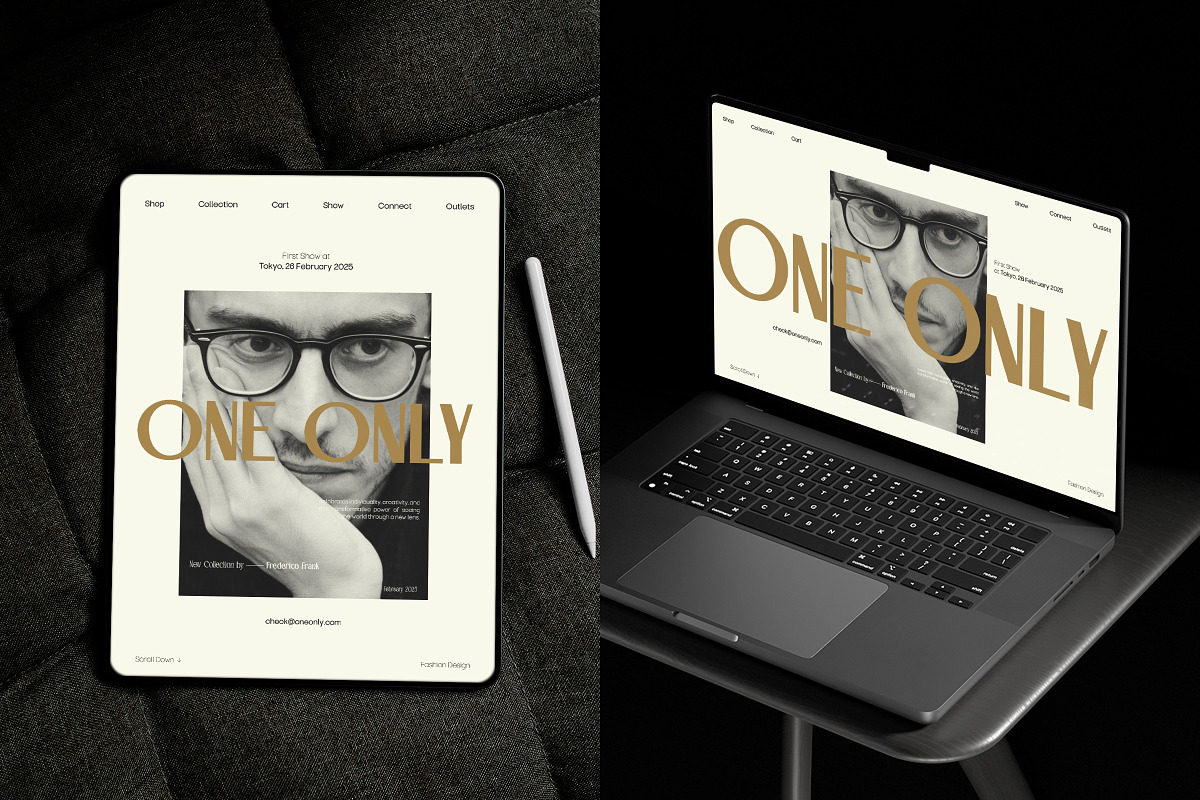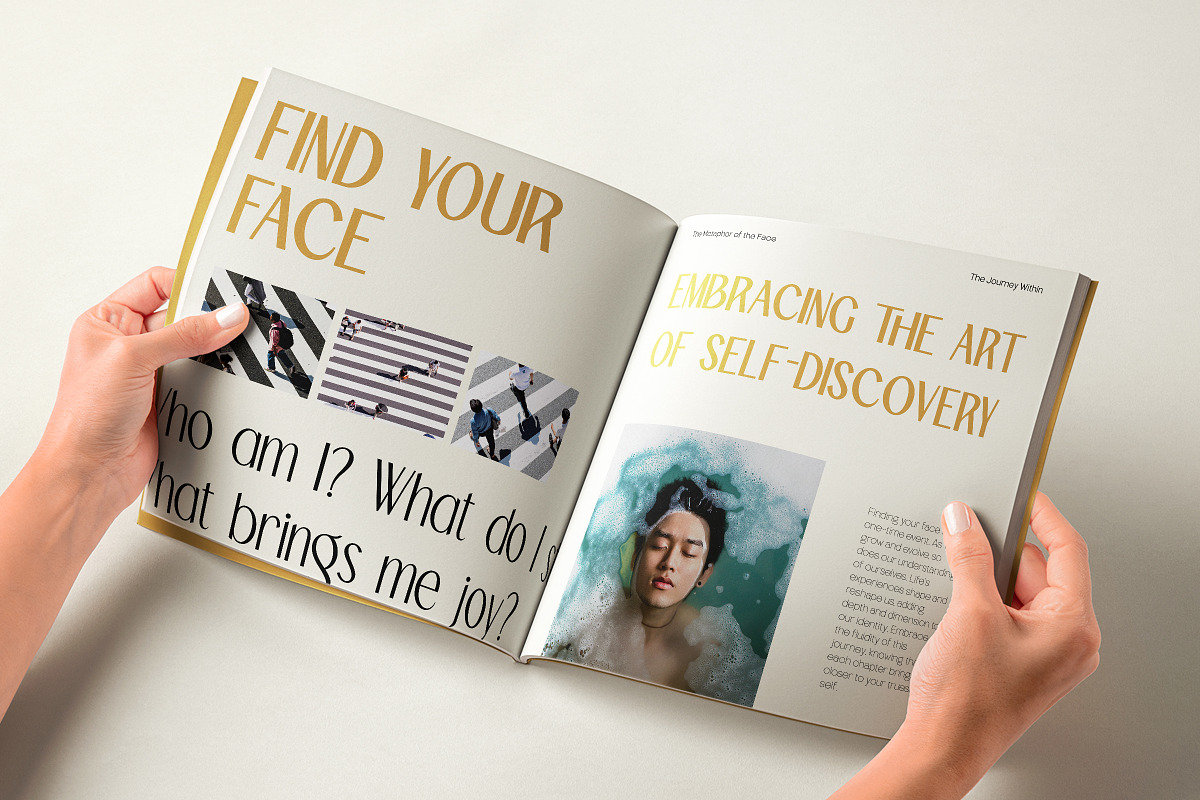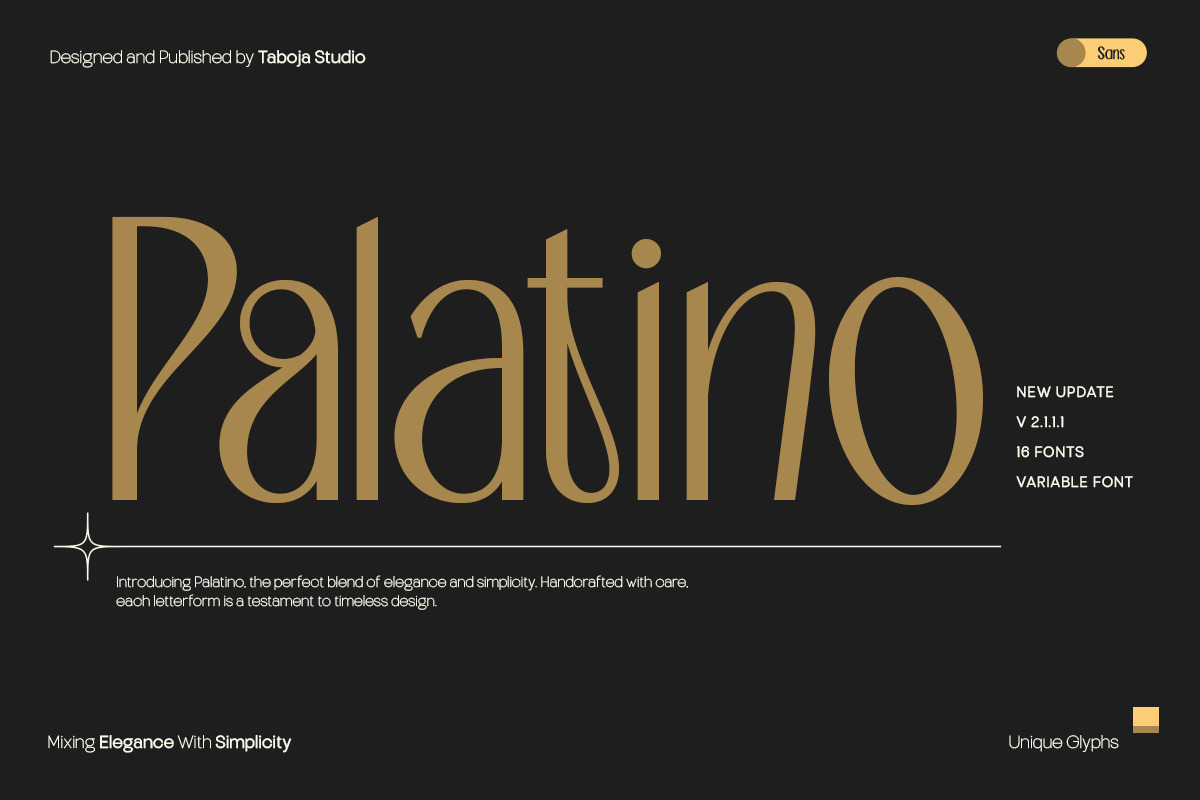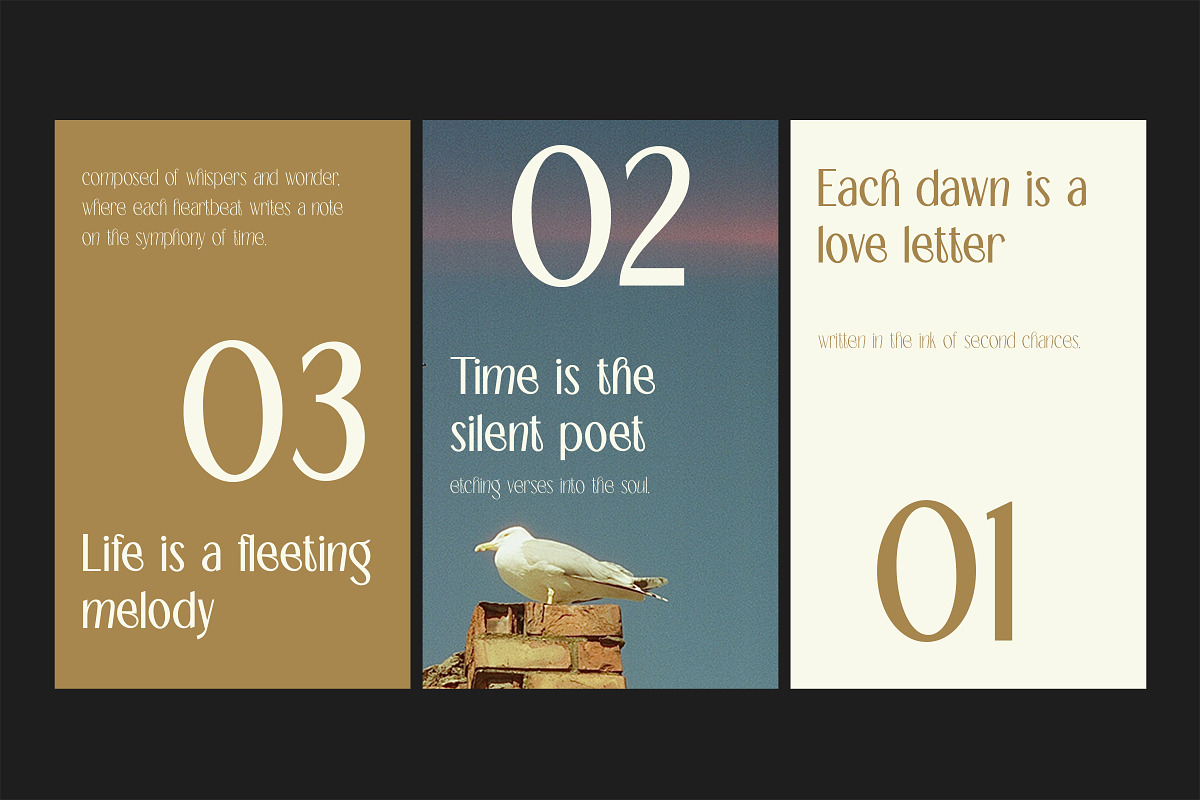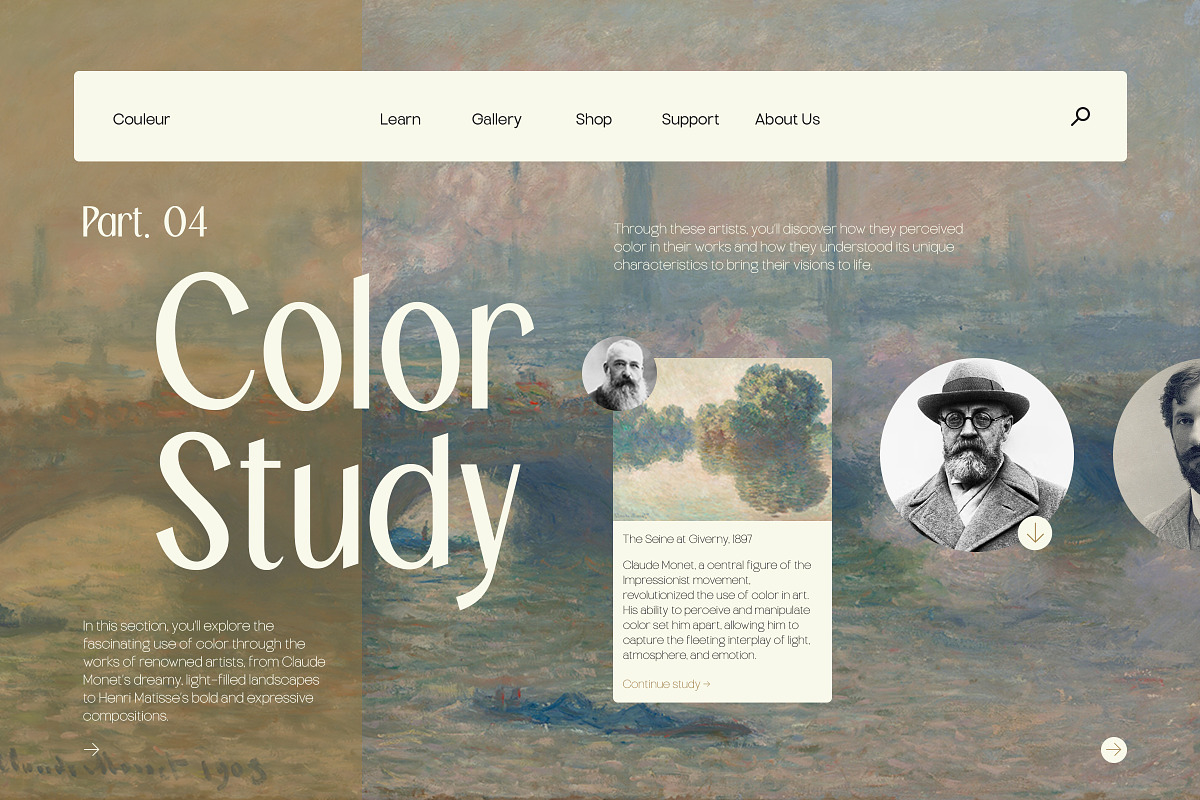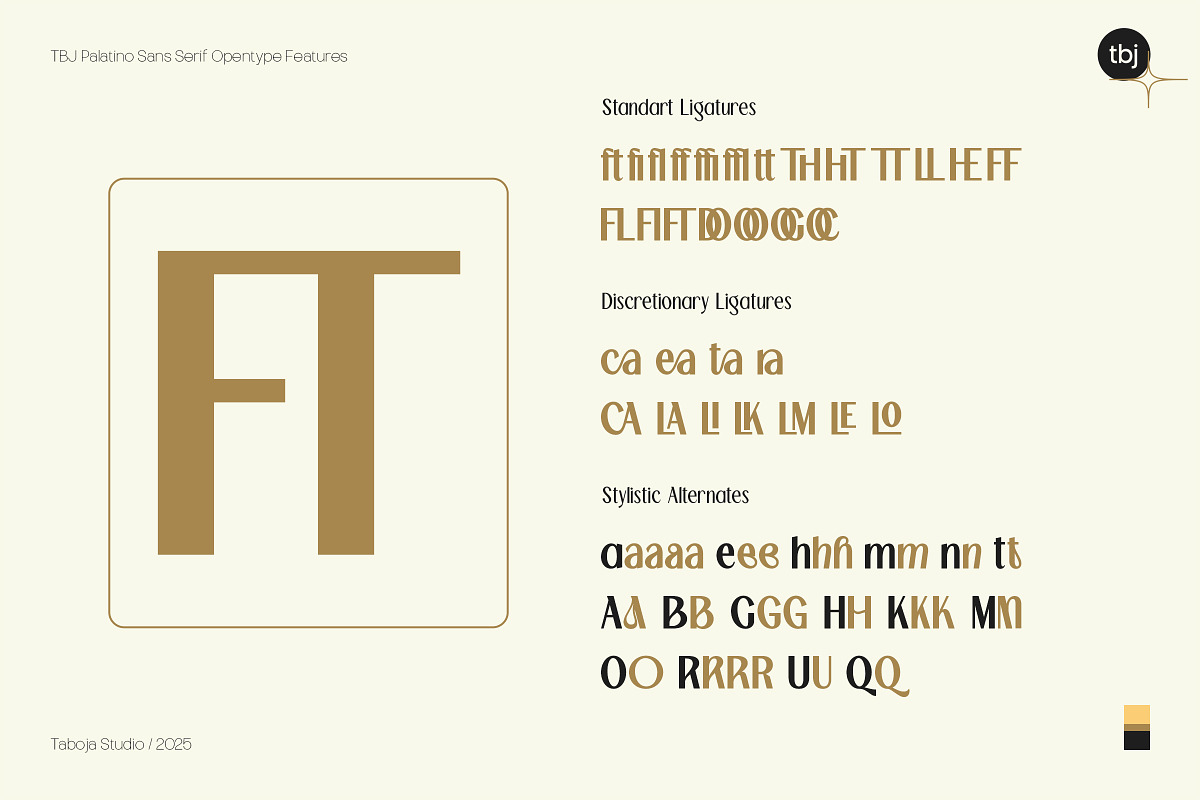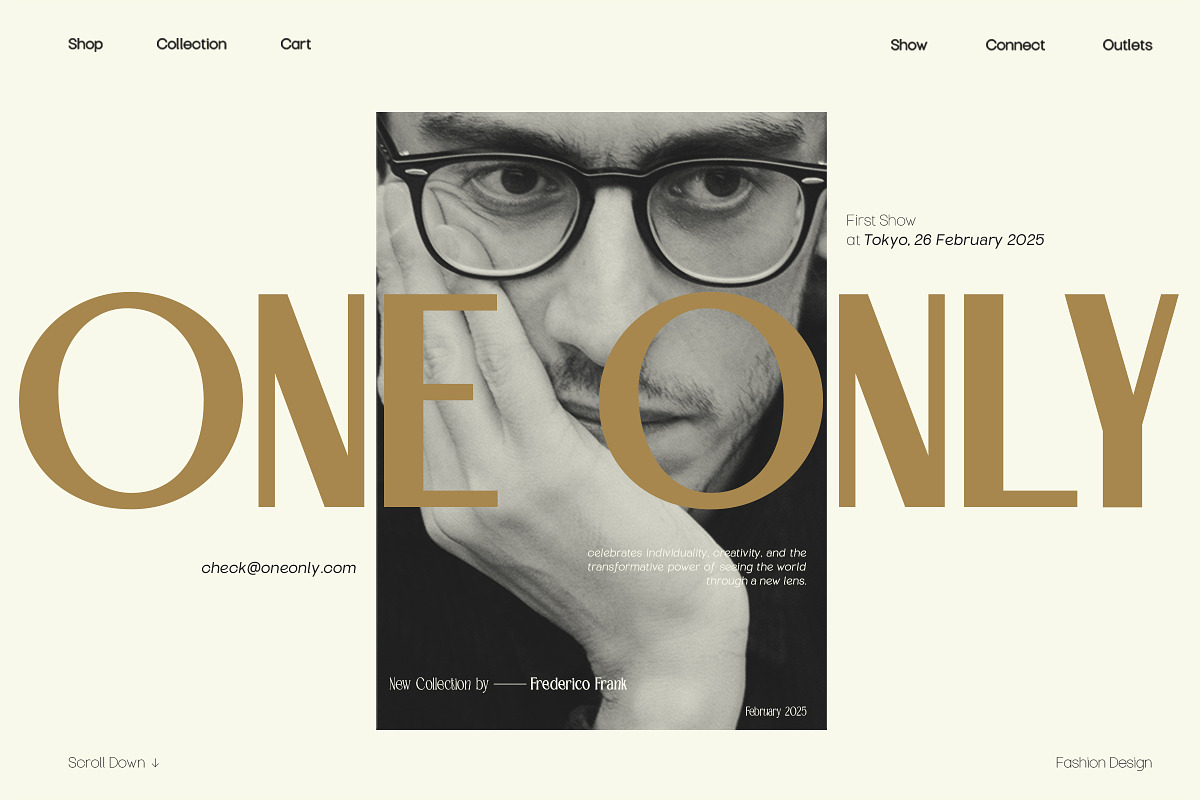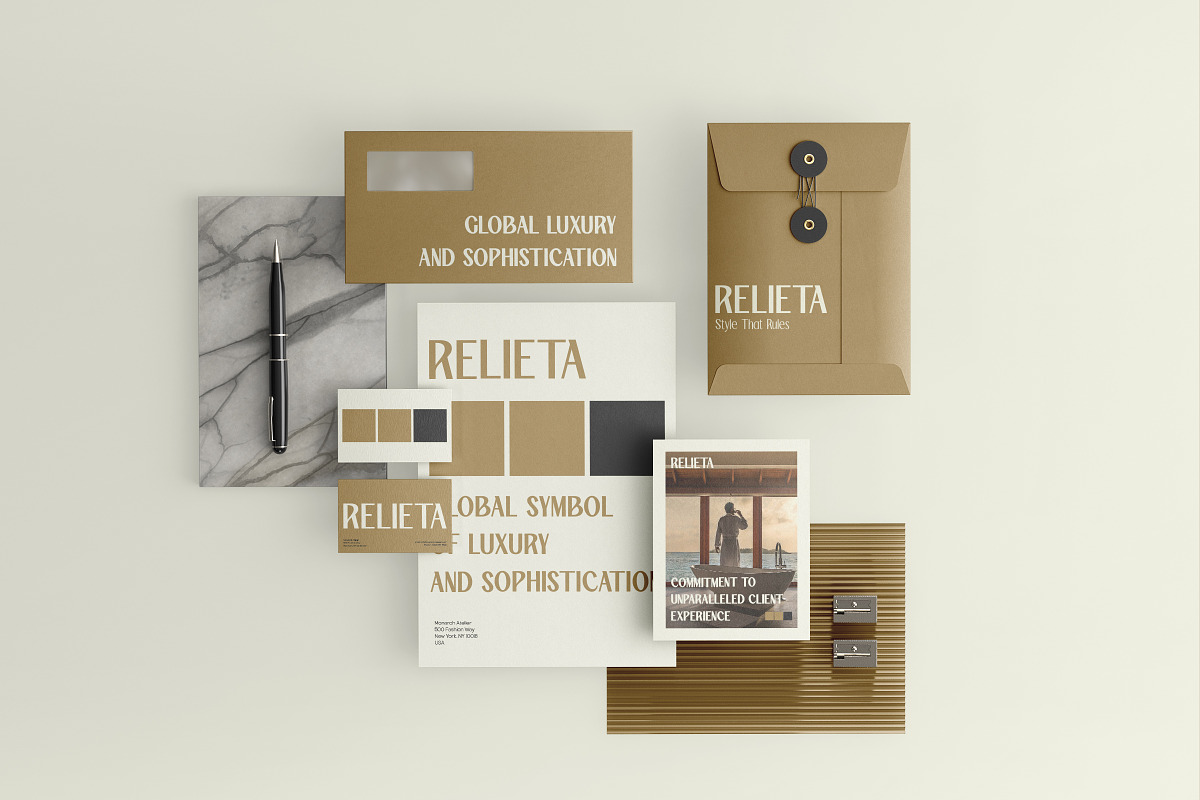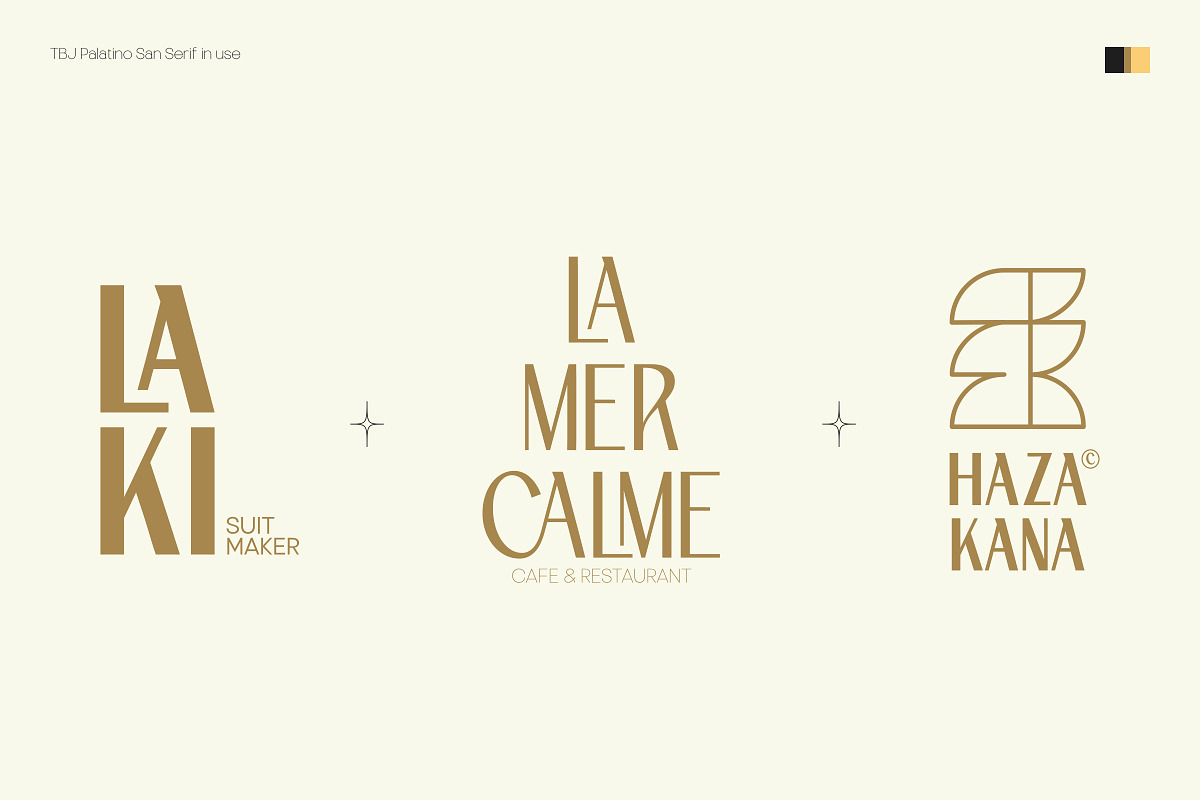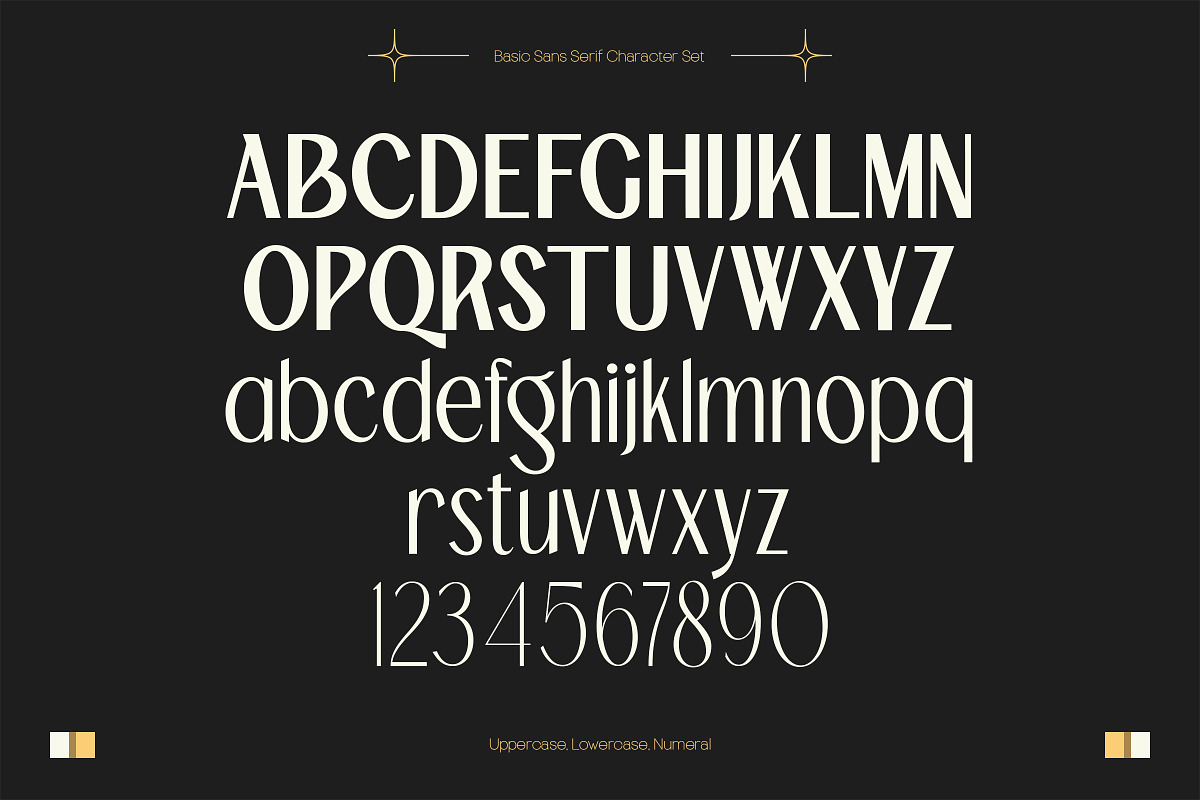
TBJ Palatino Sans Font Family
In the latest update, we present TBJ Palatino as a complete font family. It now offers eight weight options, ranging from Thin to Extra Bold, along with a Variable Font version that provides maximum flexibility for modern design needs.
With TBJ Palatino, you gain unlimited creative freedom, whether for editorial projects, branding, or other design purposes. Classic elegance meets modern simplicity, resulting in a font that is versatile and inspiring.
- 100 Various Alternates And Ligatures